Craft timeless retro lettering in seconds
AI-powered Vintage Font Generator to create, customize, and download authentic vintage font styles for posters, logos, and packaging.
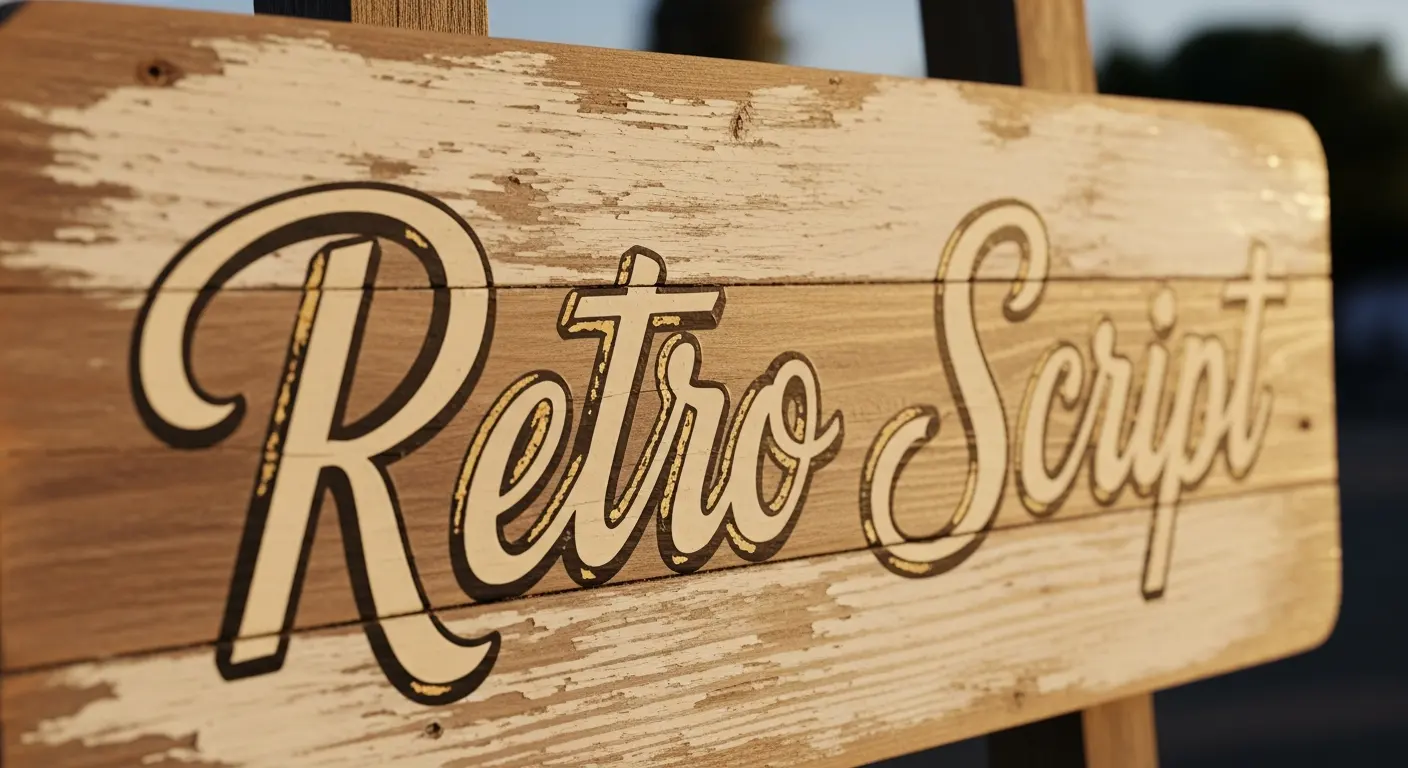
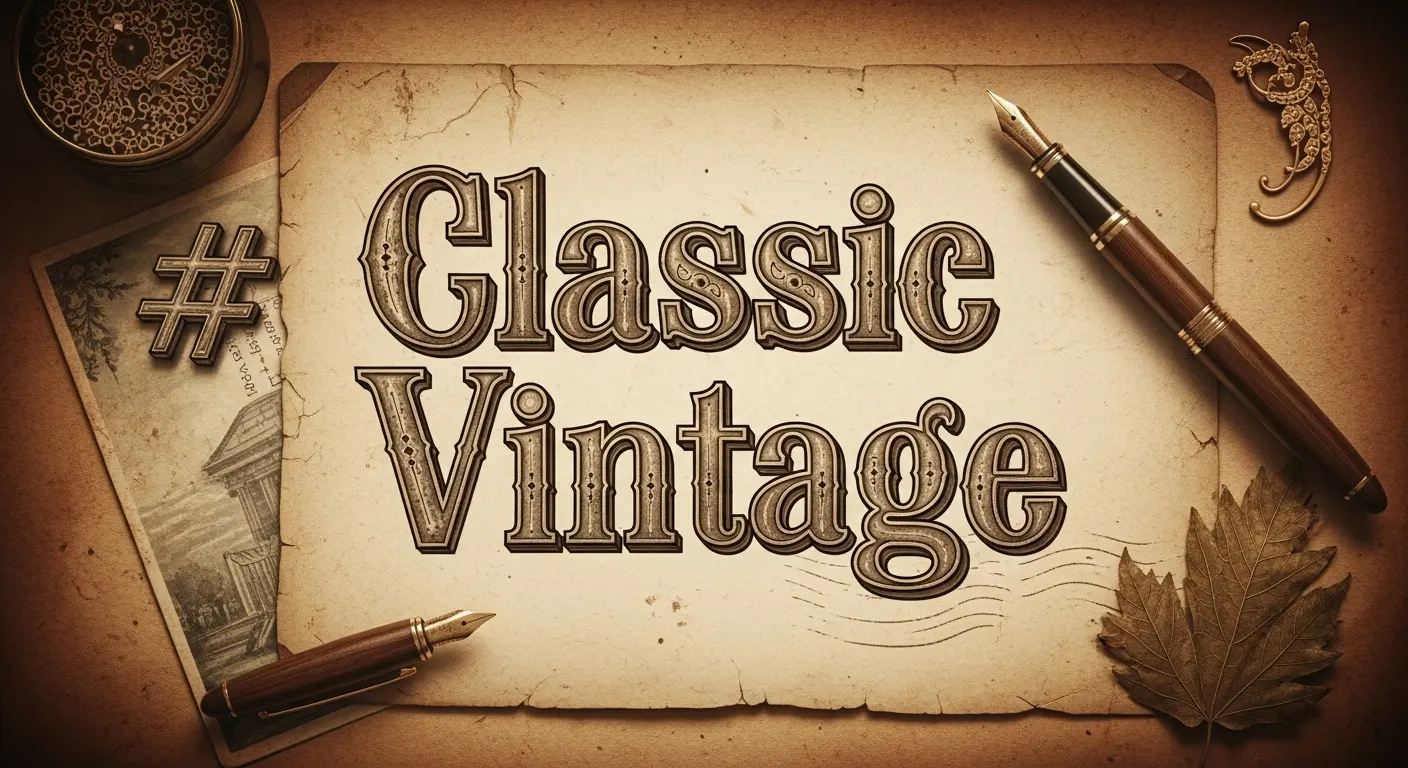
Bring your projects to life with authentic vintage font styles that match classic themes. Our AI Vintage Font Generator makes it effortless to explore, customize, and download unique vintage font designs for posters, packaging, and branding.
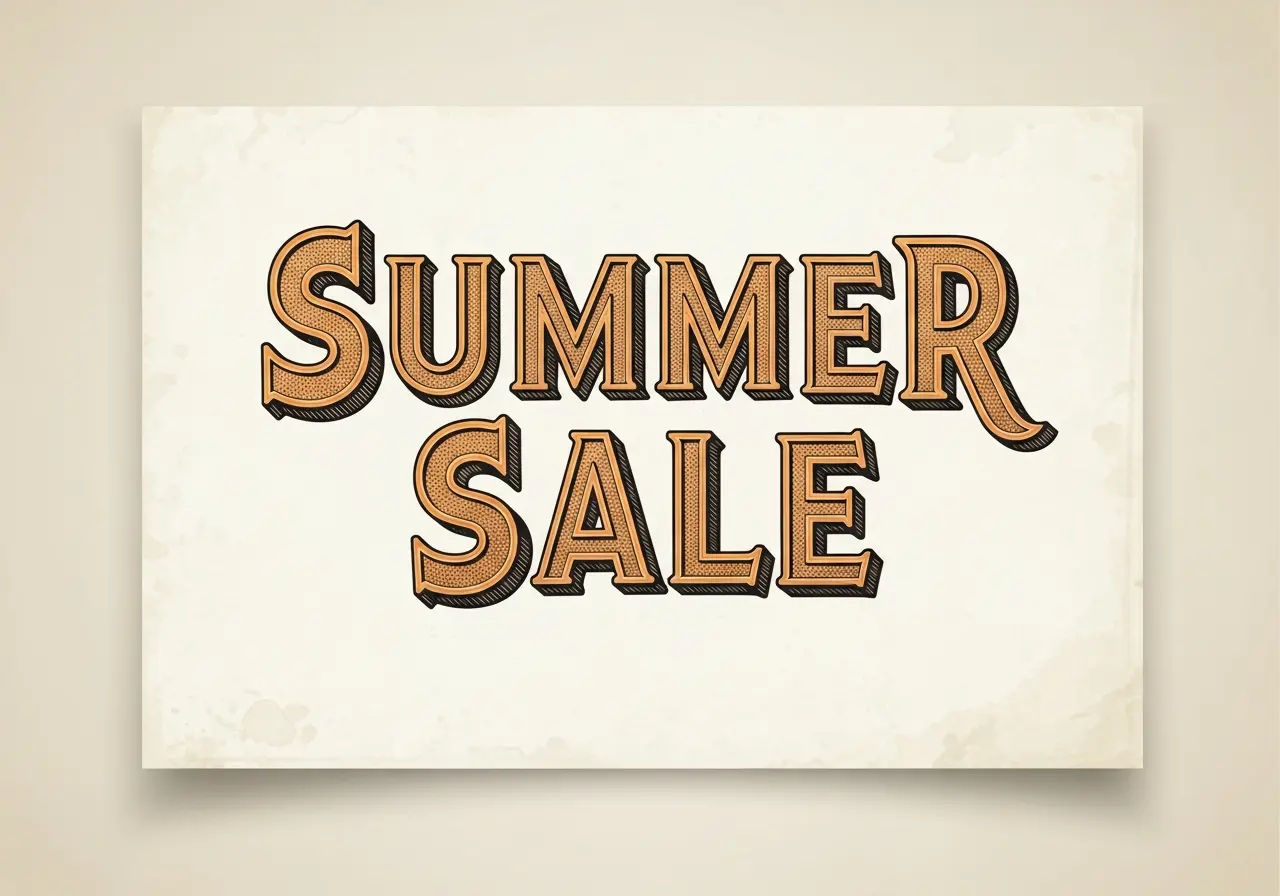
A bold vintage serif with distressed ink textures and textured terminals. This vintage font design reads strong on posters, flyers, and retro advertising where aged character matters.
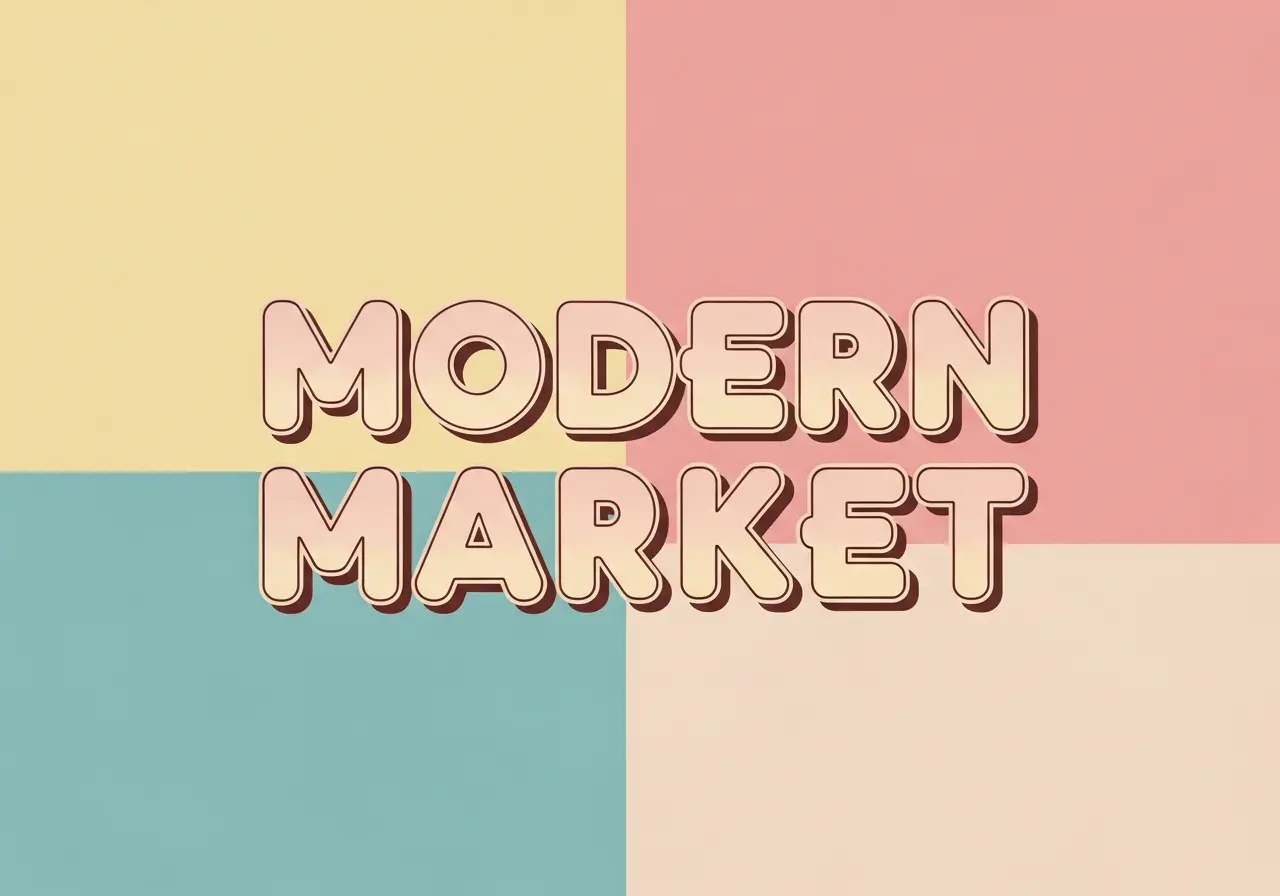
A smooth mid-century inspired rounded sans with gentle curves and compact proportions. Ideal for branding, packaging, and social media headers that need a retro-modern vibe.
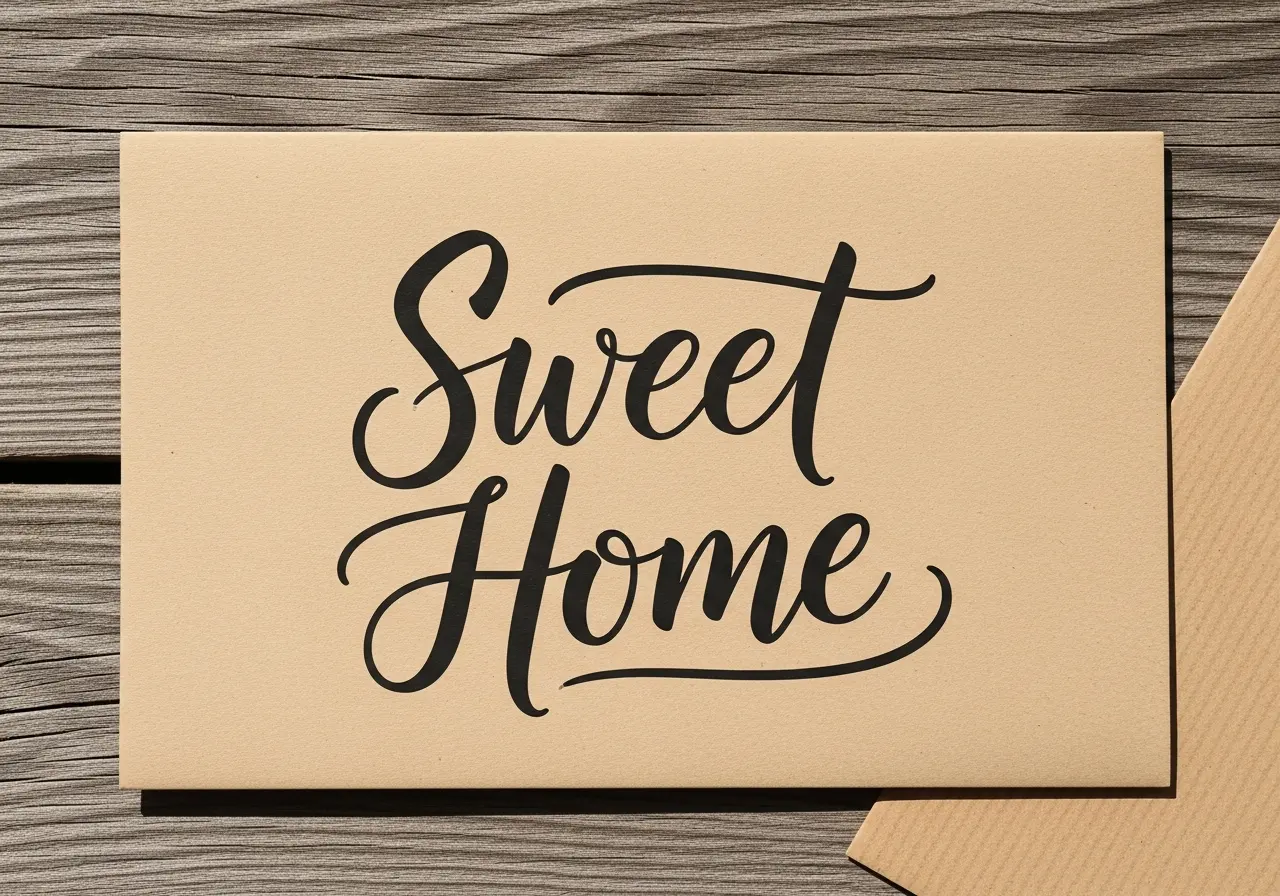
A flowing vintage script with brushed strokes and classic swashes. Perfect for greeting cards, logos, and signage that want an authentic handcrafted retro touch.
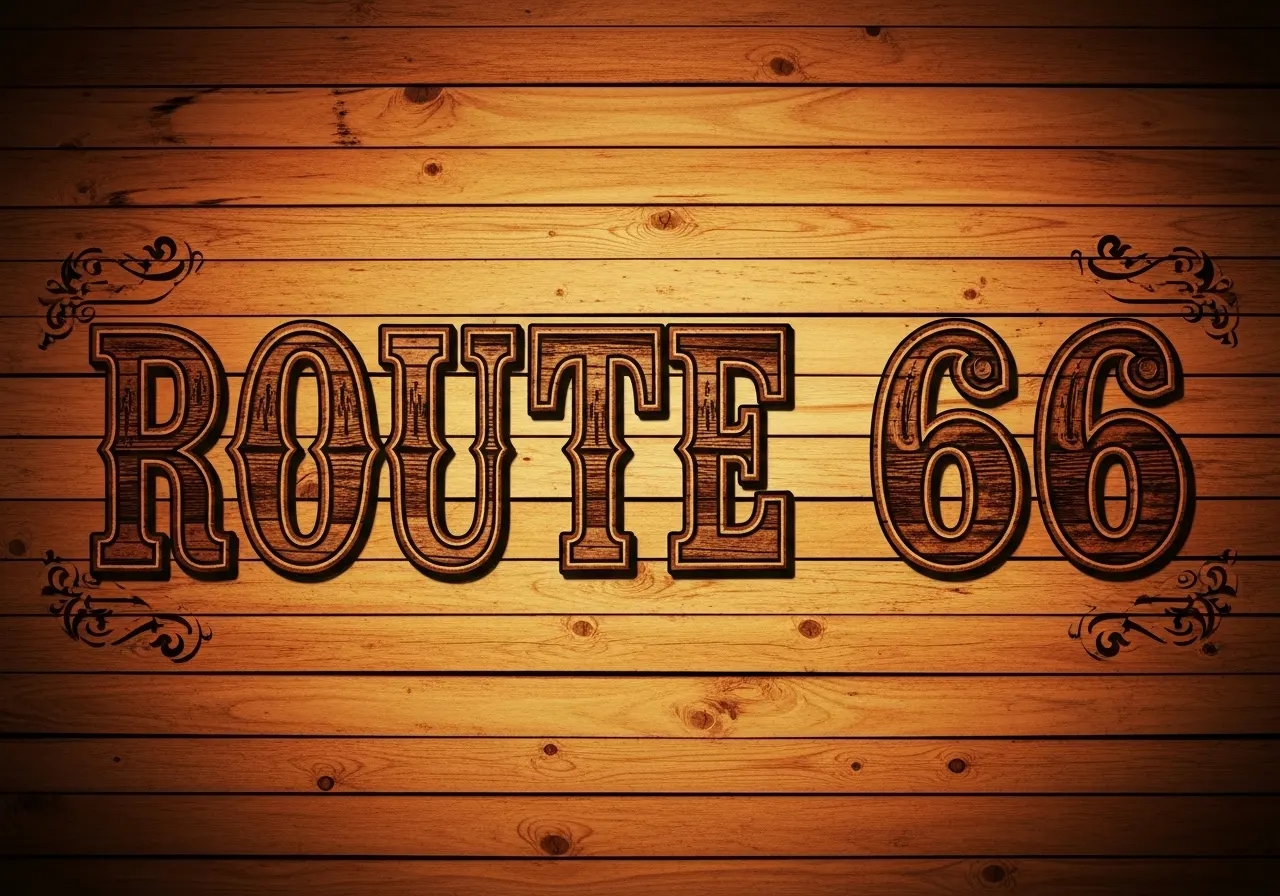
A chunky western slab display with engraved detailing and ornamental terminals. Great for posters, event headlines, and packaging with a rustic vintage theme.
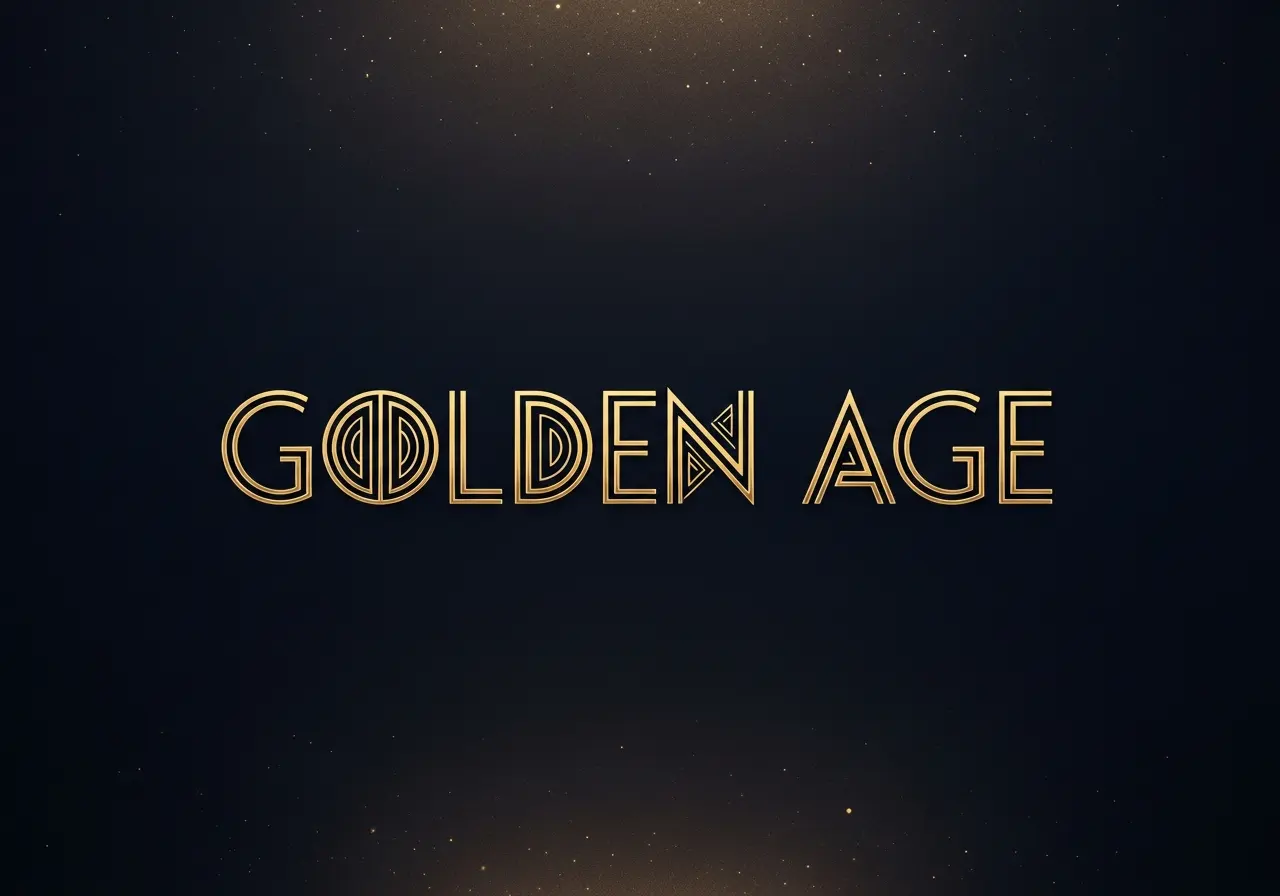
A refined Art Deco vintage font with geometric forms and elegant linework. Suited for luxury branding, invitations, and high-end packaging needing retro glamour.
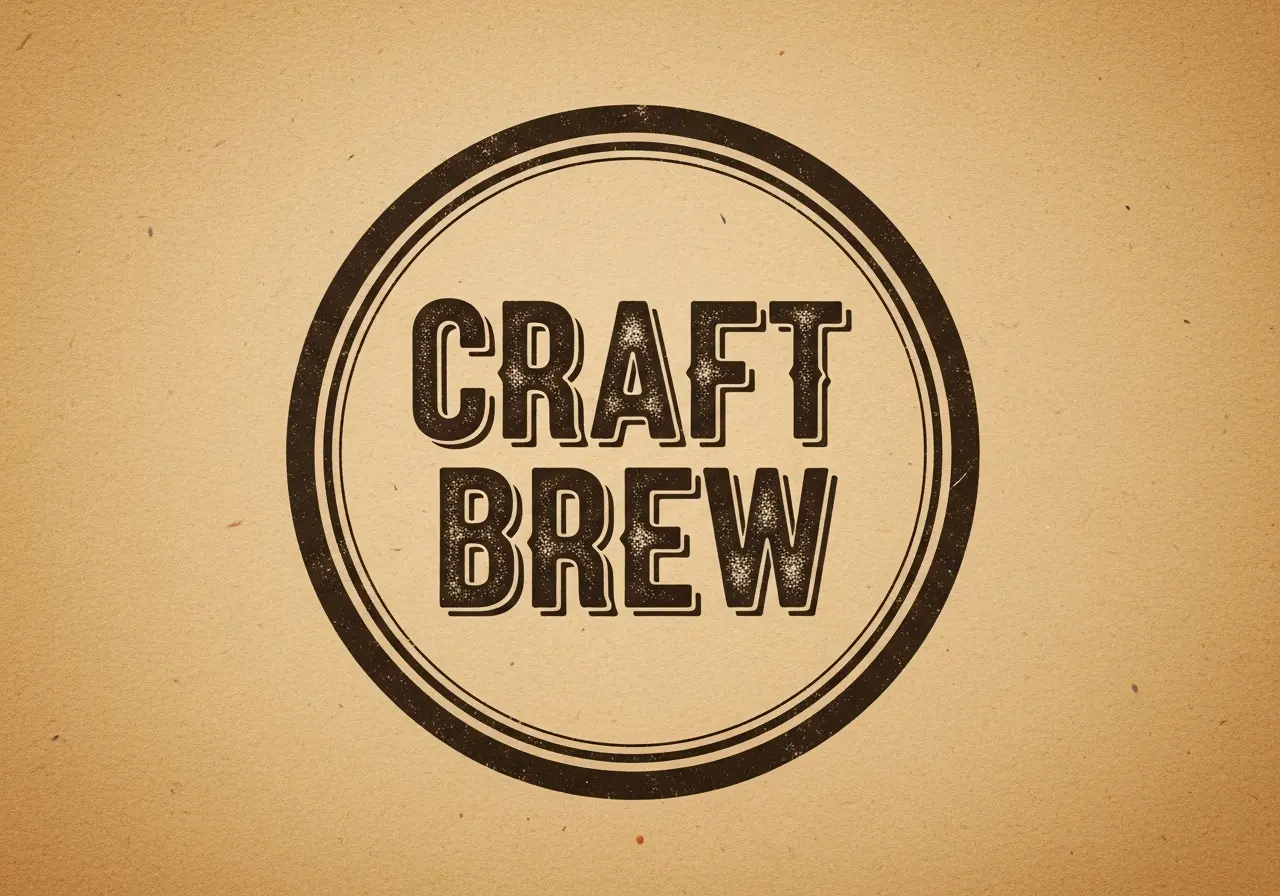
A compact badge-style script combining bold cursive with vintage badge ornaments. Ideal for logos, labels, and product stickers that require instant retro recognition.
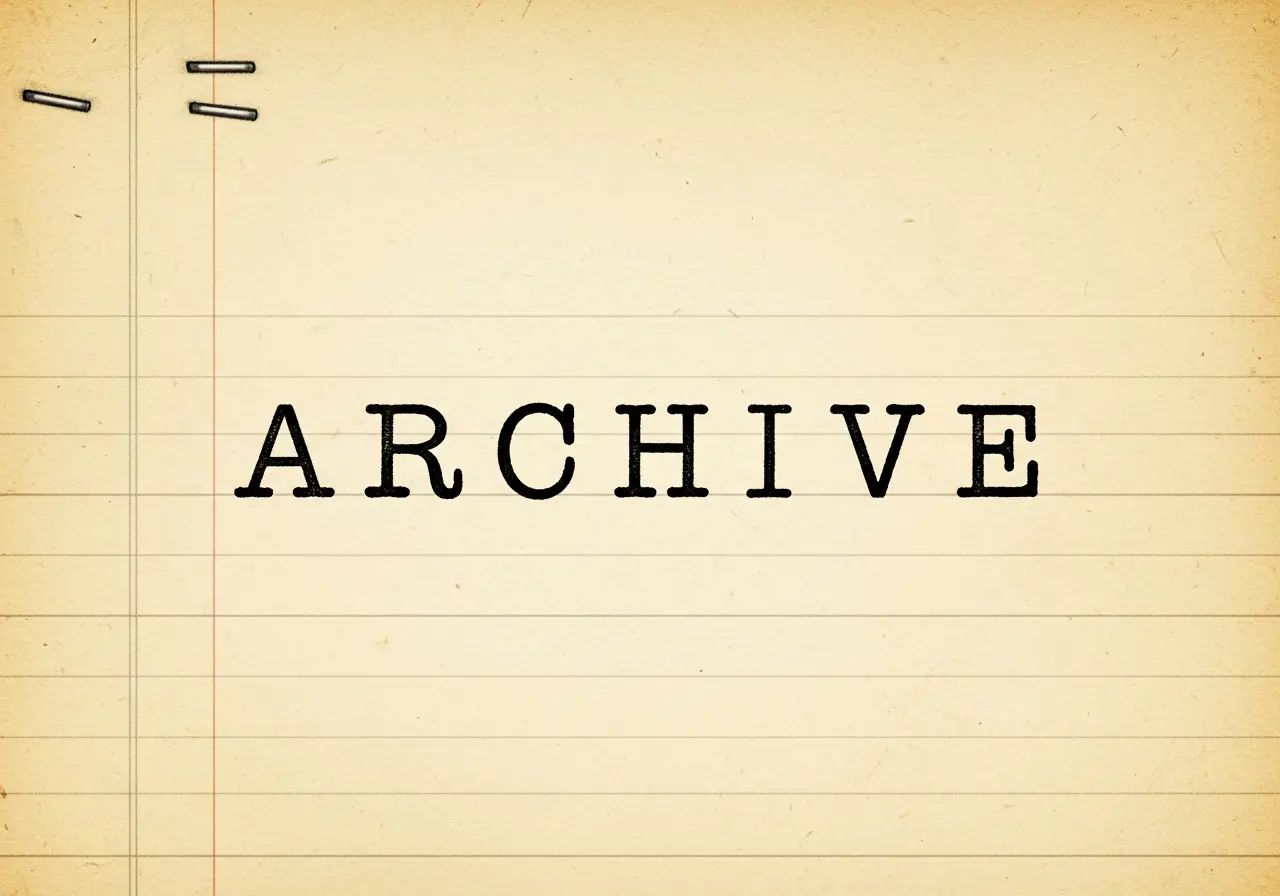
A monospaced typewriter-inspired vintage font with irregular ink blotting. Excellent for editorial layouts, retro-themed websites, and vintage posters that need authentic mechanical charm.
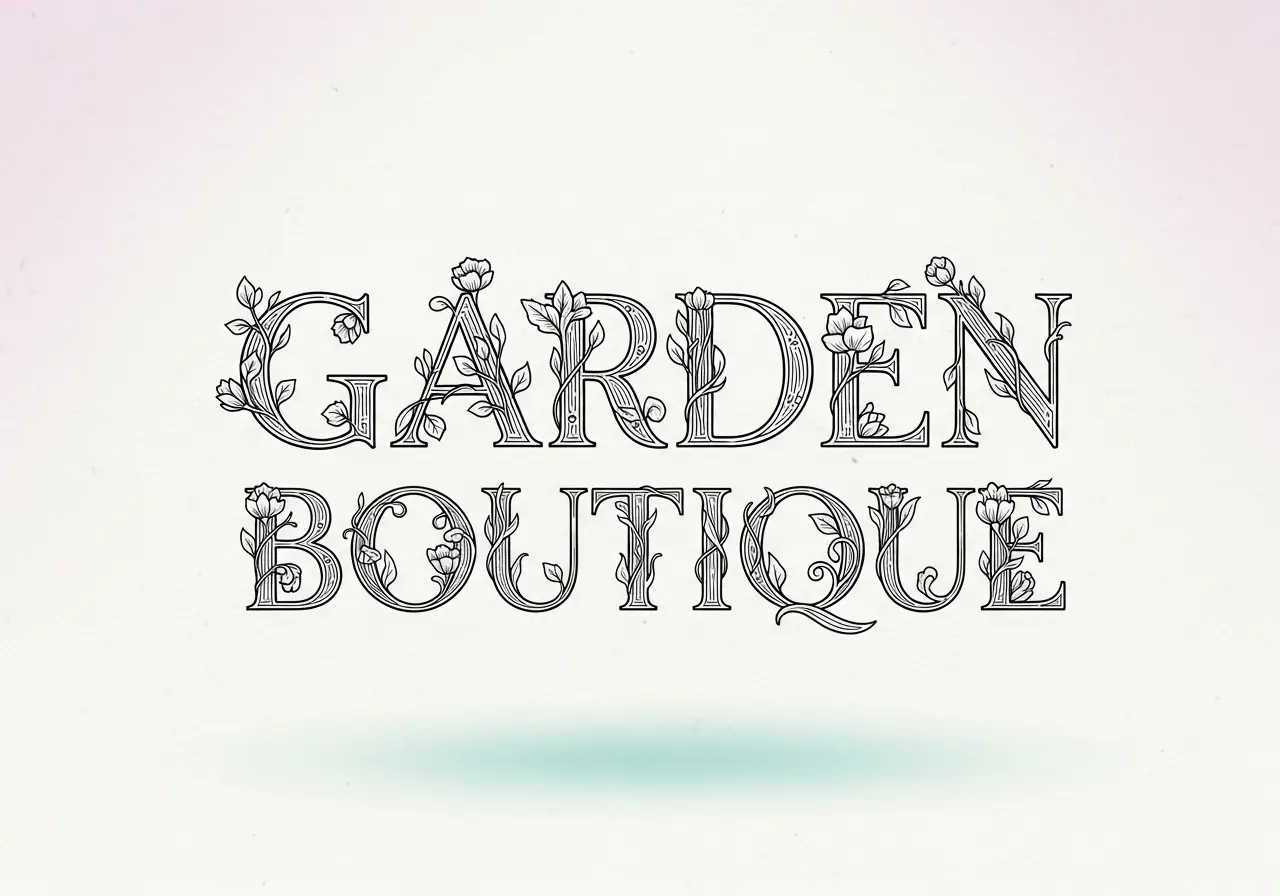
A decorative vintage font that weaves floral motifs into letterforms. Best for wedding invites, boutique packaging, and feminine branding with a nostalgic flourish.
A bold retro script adapted to neon sign aesthetics with glow and tubing details. Perfect for nightlife posters, cafe signage, and playful social graphics.
An ornate Victorian-era engraved display font with flourishes and fine linework. Use it for book covers, premium labels, and heritage branding that needs classic elegance.